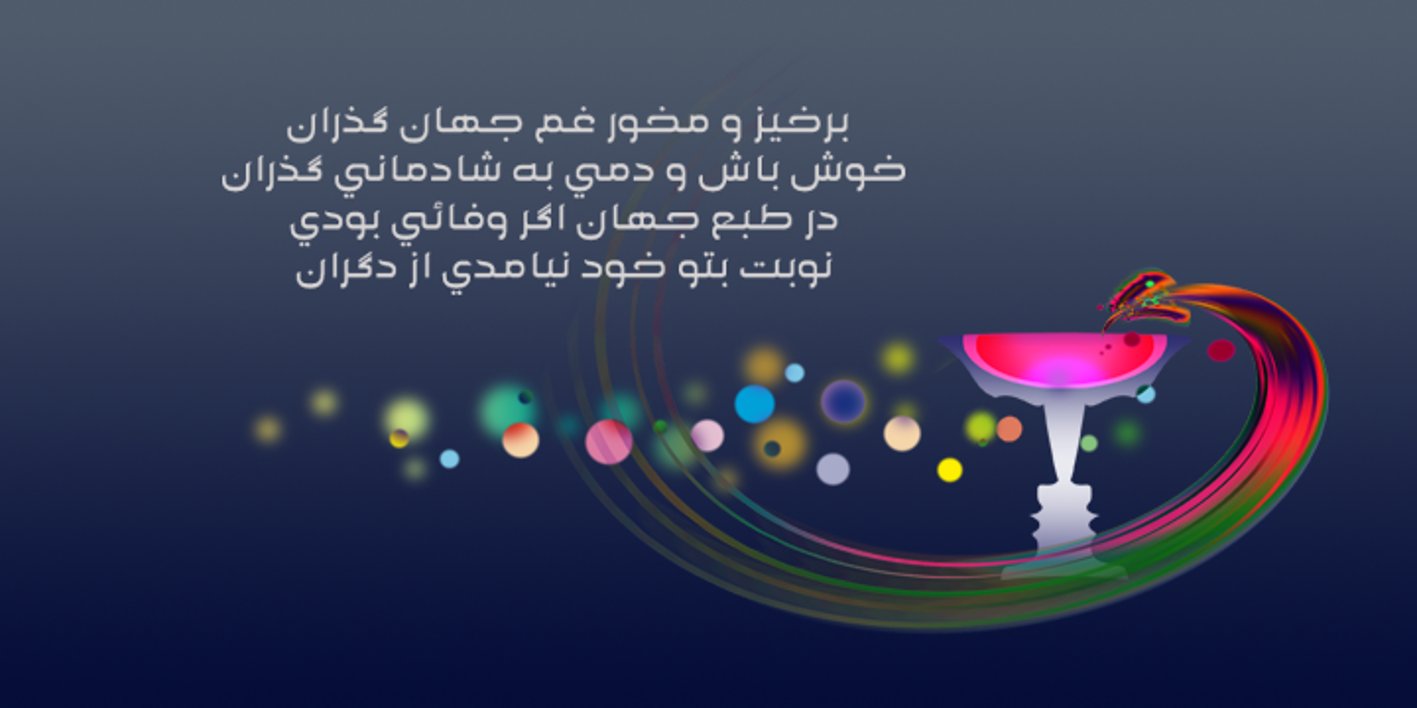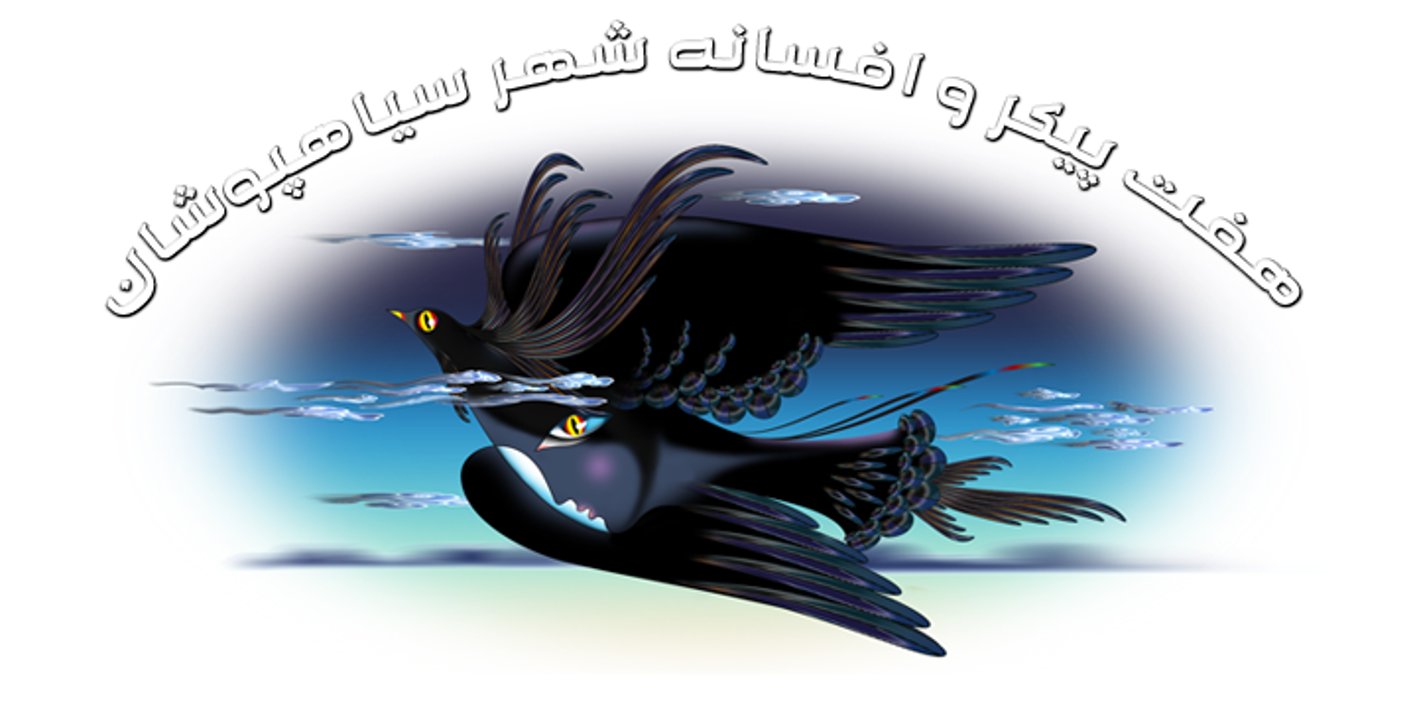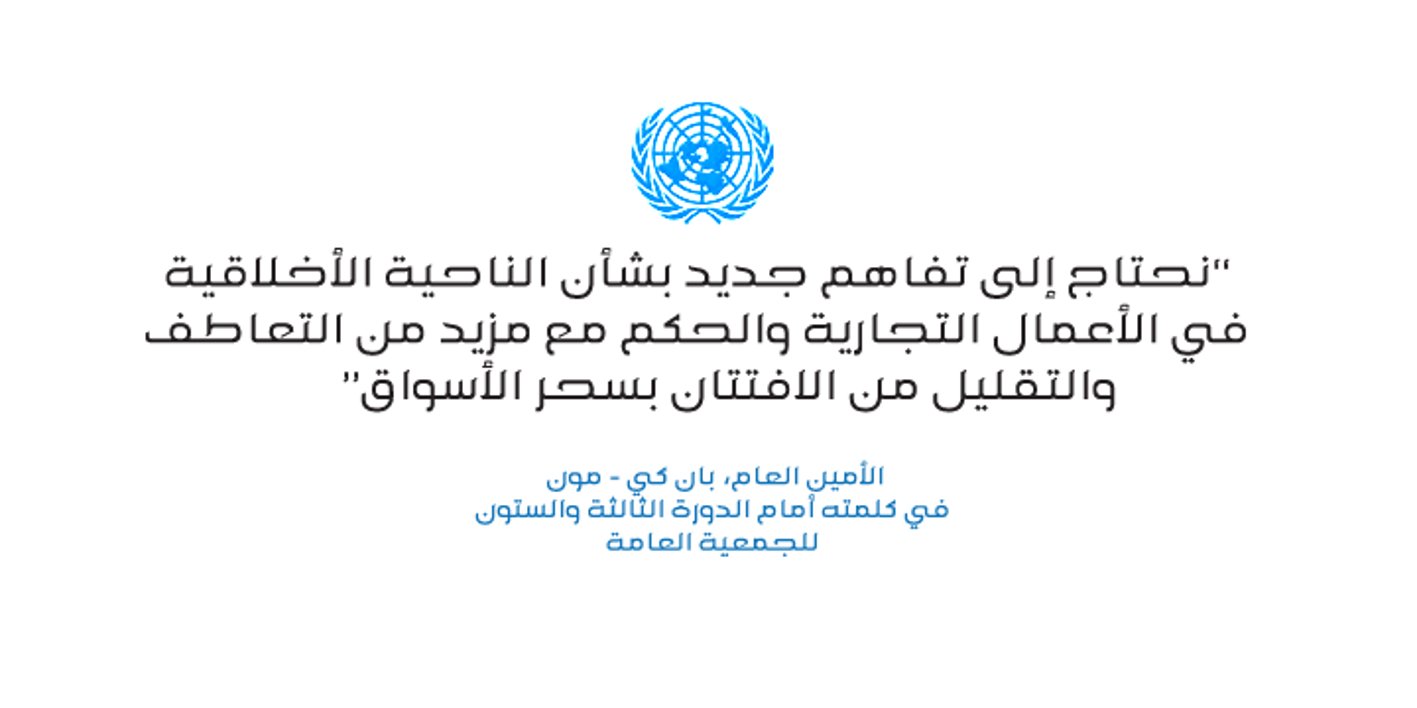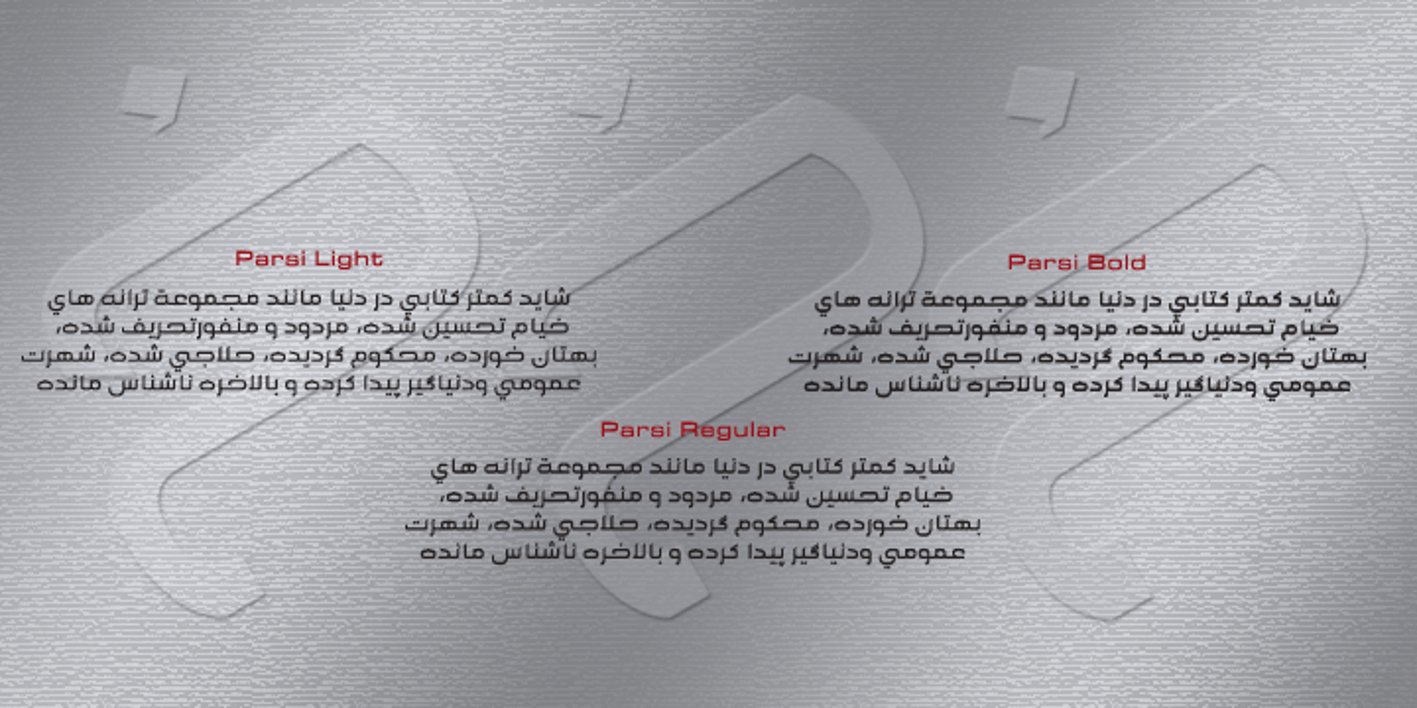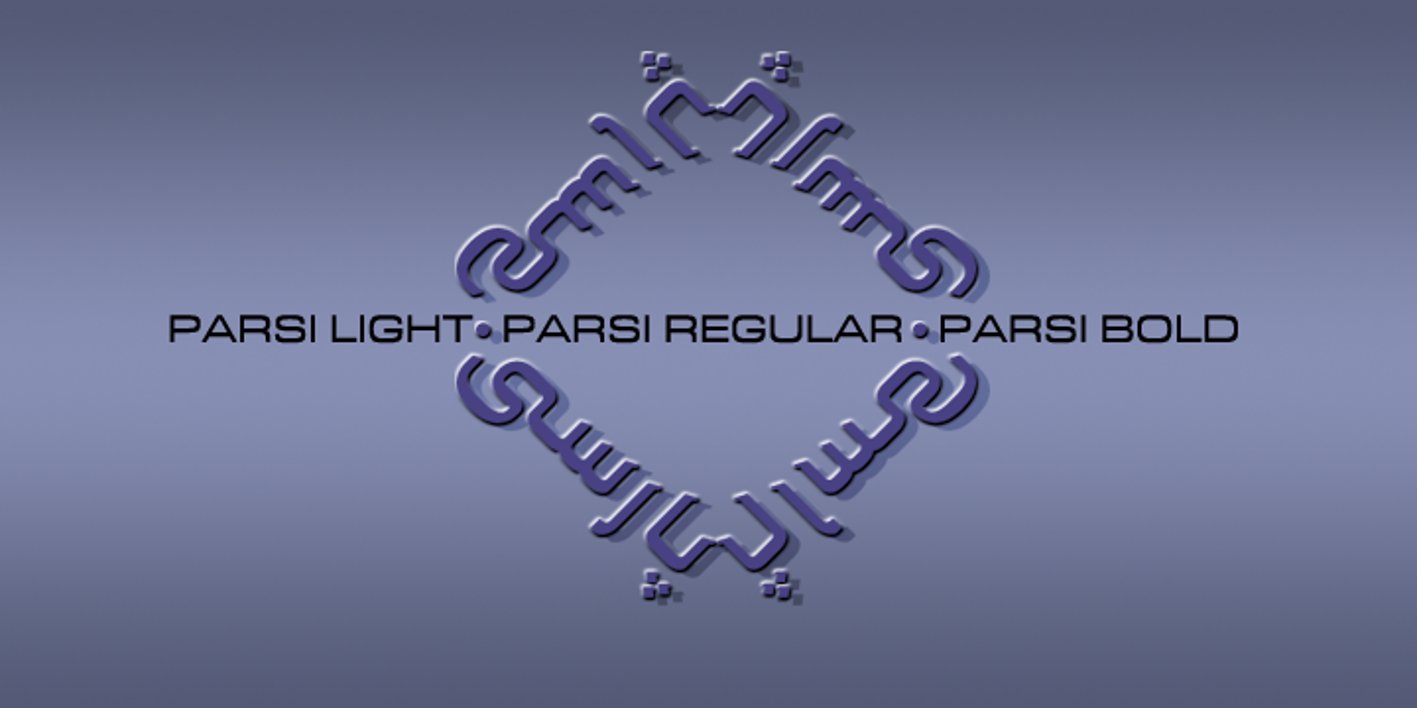
Parsi Font
Parsi Font is perfect for Persian cultural events, Middle Eastern restaurant branding, Zoroastrian community materials, Persian language publications, Iranian cultural centers, traditional Persian art exhibitions, Persian poetry books, Middle Eastern academic studies, Persian calligraphy workshops, Iranian heritage organizations, Persian New Year celebrations, and cultural projects that require authentic, Persian-inspired typography with traditional elegance and cultural sophistication.
What makes Parsi Font so exciting is its authentic Persian heritage and cultural sophistication that embodies the rich artistic traditions and elegant calligraphic beauty of Persian civilization and Zoroastrian culture. This typeface features graceful letterforms with Persian-inspired characteristics and traditional proportions that evoke the timeless beauty of Persian manuscripts, ancient Zoroastrian texts, and the sophisticated artistic heritage of Iranian culture. The font's Persian character and cultural appeal make it perfect for cultural organizations and heritage projects that want to communicate authenticity, tradition, and the kind of cultural depth that honors Persian artistic legacy and Zoroastrian spiritual traditions.
Parsi Font typically comes in multiple weights and styles including Light, Regular, Medium, and Bold variations. Many versions also include Persian ornaments, traditional decorative elements, and culturally appropriate symbols that enhance the font's Persian functionality and provide designers with comprehensive tools for creating authentic, culturally-inspired typography compositions that honor Persian artistic traditions and Zoroastrian heritage.
Honor Persian heritage with the cultural elegance of Parsi Font Free Download. This culturally authentic typeface brings together Persian artistic tradition with contemporary design functionality, making it an essential tool for cultural institutions and Persian communities that need to create memorable, culturally meaningful communications that resonate with audiences seeking authentic Persian culture and Zoroastrian heritage. The font's Persian character ensures your cultural projects will convey genuine authenticity and traditional sophistication.
Whether you're designing Persian cultural materials, Middle Eastern restaurant branding, or Zoroastrian community communications, Parsi Font delivers exceptional cultural authenticity and Persian elegance that connects with audiences who appreciate Persian artistic traditions and cultural heritage. Its graceful, traditional appearance works beautifully with Persian color schemes and cultural imagery, creating designs that feel both authentically Persian and contemporarily sophisticated.
The elegantly crafted letterforms of Parsi Font demonstrate deep respect for Persian typographic traditions and cultural design principles. Each character has been designed to honor the artistic legacy of Persian calligraphy while ensuring excellent readability for contemporary applications, making it particularly valuable for cultural communications where typography must convey both Persian authenticity and accessible cultural information for diverse audiences.